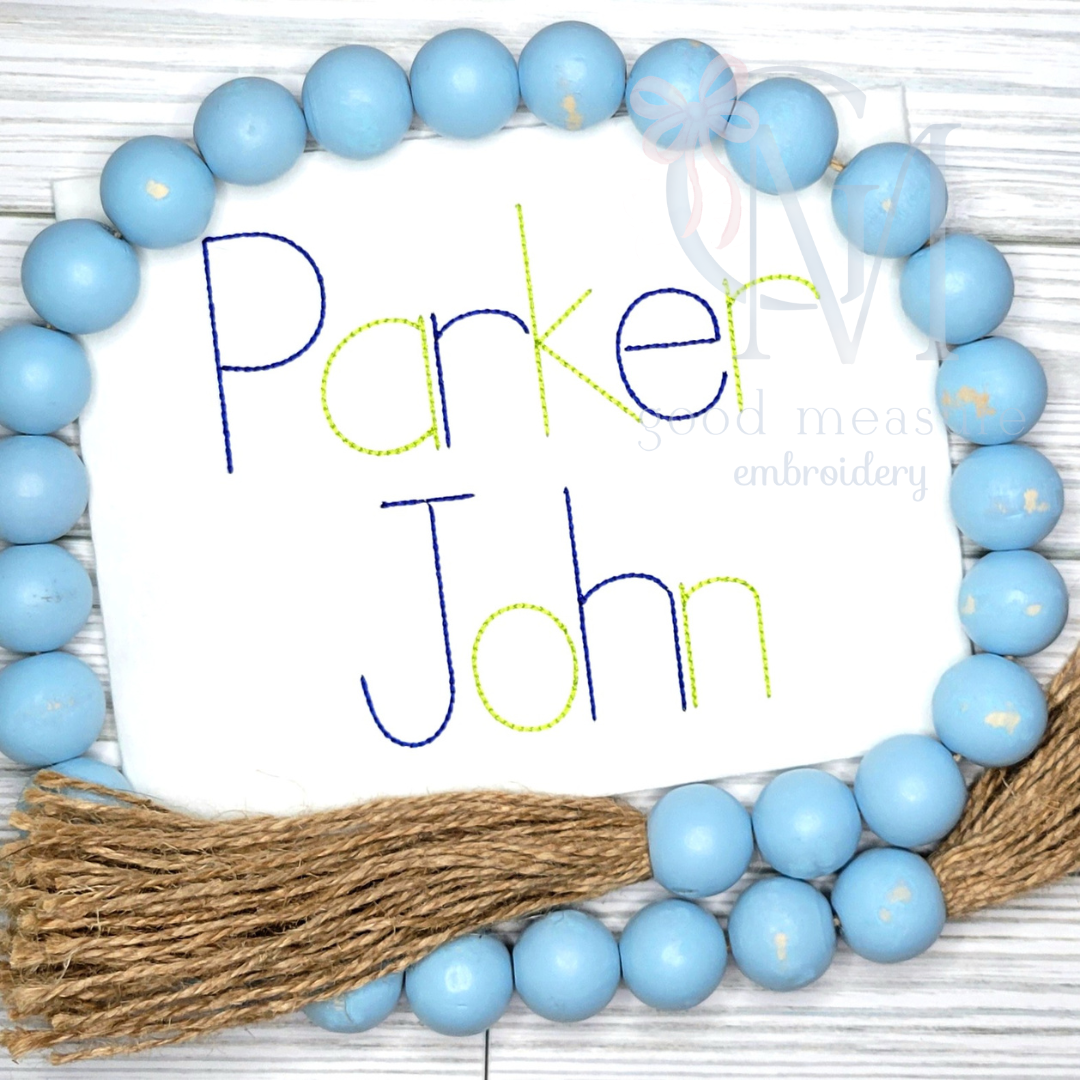
This file includes both capital and lowercase letters (A-Z) for the Benson font - a crisp, neat backstitch print font in sizes 1, 1.5, 1.75, 2, 2.5, 2.75, and 3 inches.